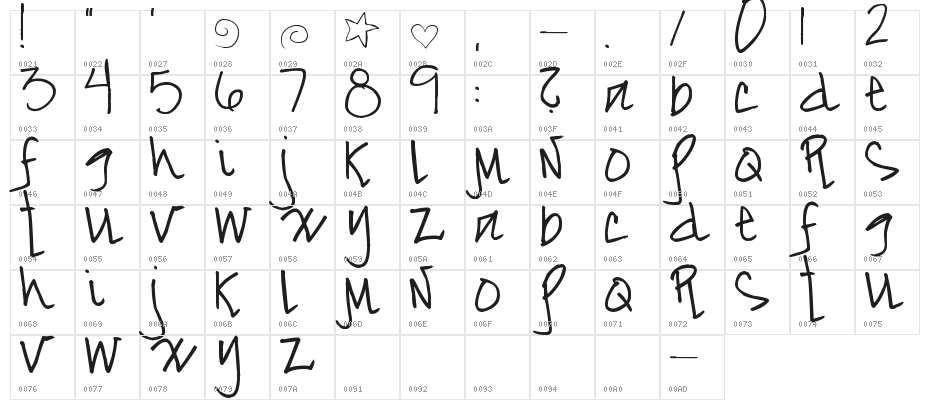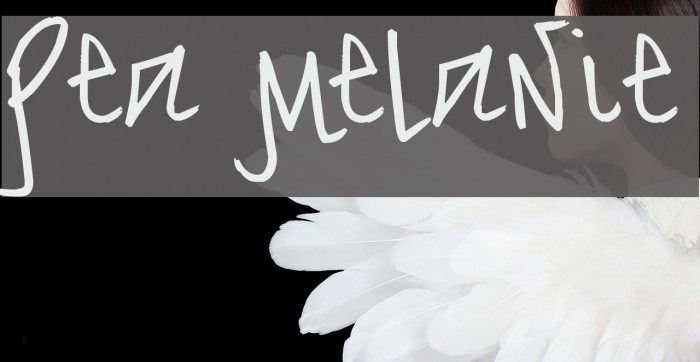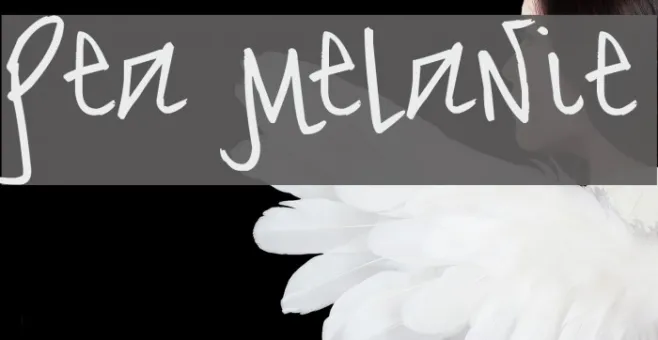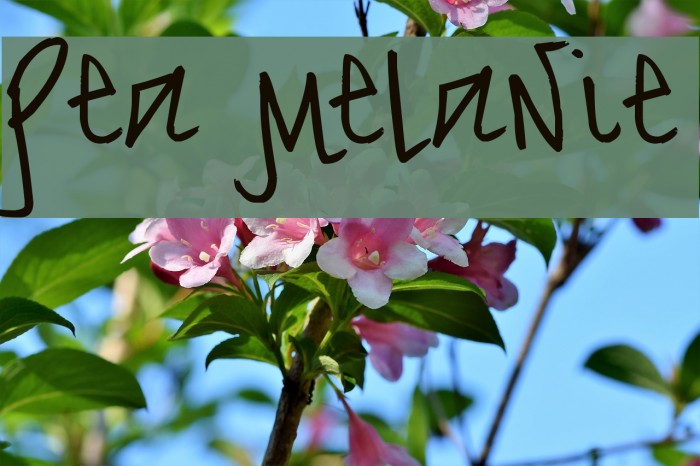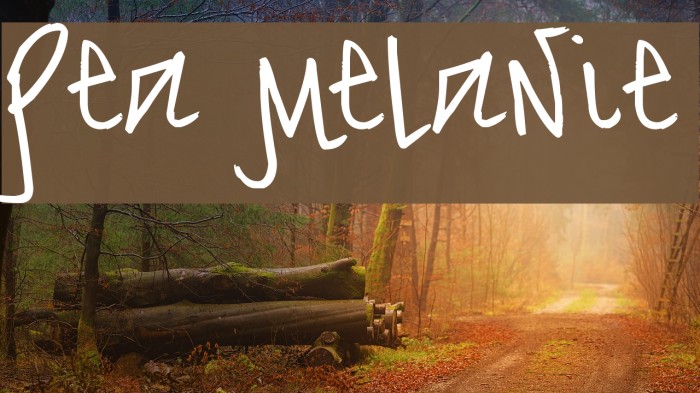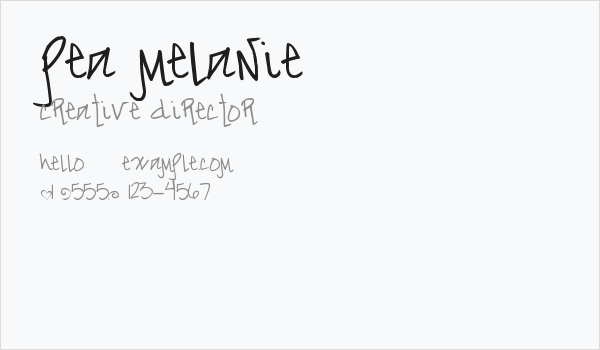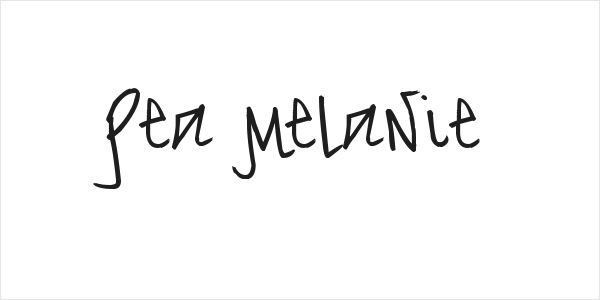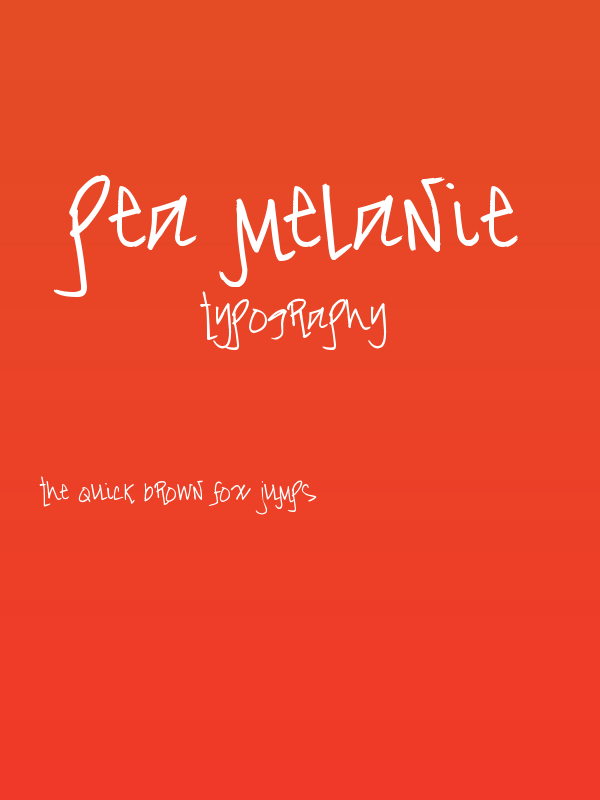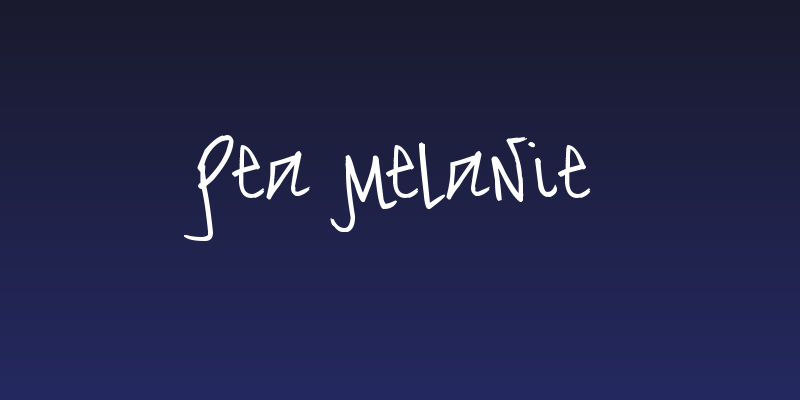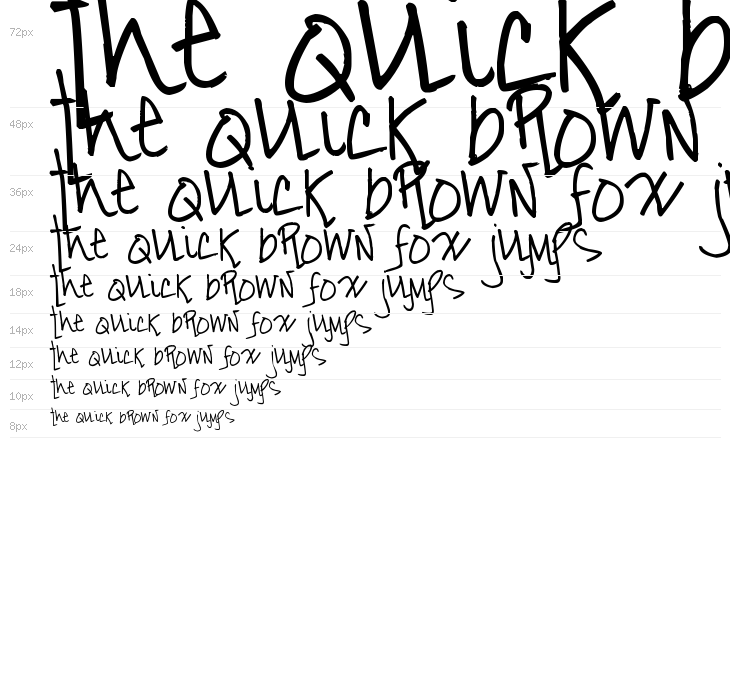
Pea Melanie Font
Pea Melanie Description
This font features a playful and casual handwritten style, characterized by its irregular strokes and slightly tilted letters. The uppercase and lowercase letters blend seamlessly, maintaining a consistent flow that mimics natural handwriting. The numbers are bold and clear, matching the whimsical style of the alphabet. Special characters are creatively designed, adding to the font's charm. The overall appearance is friendly and approachable, making it suitable for informal and creative projects.
| Proposed Projects | Ideal for greeting cards, personal notes, scrapbooking, children's books, and informal branding. |